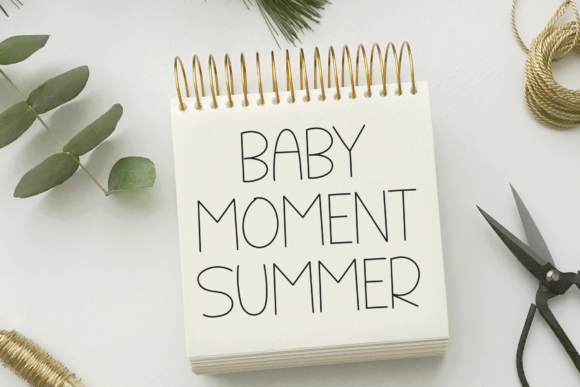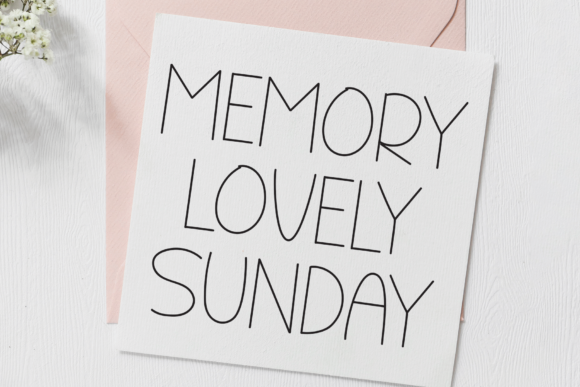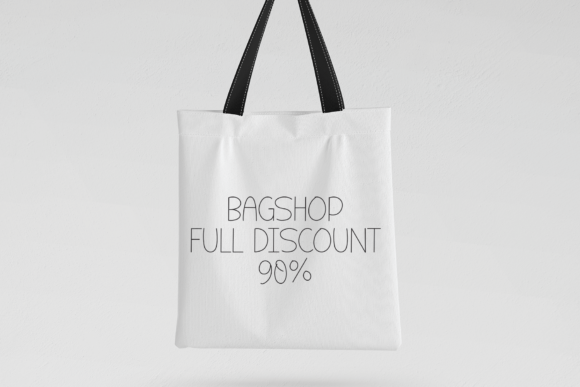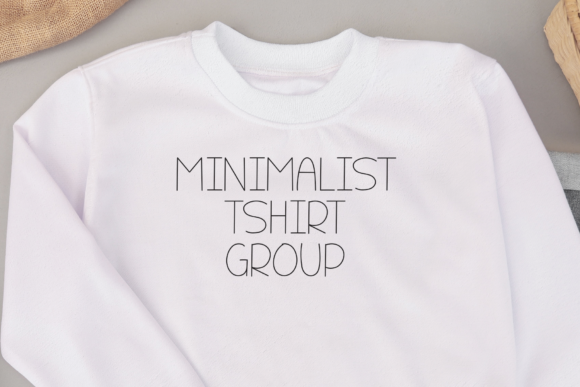
Introduction to Minimalest Font
Remember the thrill of discovering that perfect font for your creative project? The one that brings your design to life and makes your heart skip a beat? For designers, finding the right font can be a game-changer, and that’s exactly what the Minimalest Font does. With its simple, tall, and playful handwritten style, this font is a breath of fresh air in the world of design.
Whether you’re working on a logo, a brochure, or a social media graphic, the Minimalest Font is sure to add a touch of whimsy and personality to your design. And the best part? It’s a high-quality, free download that’s perfect for designers on a budget. With its transparent background and versatile design, the Minimalest Font is a valuable resource for any creative project.
Key Features of Minimalest Font
- High-quality design resource suitable for various creative projects, including digital art, graphic design, and web development.
- Transparent background, allowing for seamless integration with other design elements and backgrounds.
- Designed with precision and attention to detail, resulting in a crisp and clear font with high resolution (up to 300 DPI).
- Perfect for use in digital design, print media, and even web design, thanks to its versatility and adaptability.
- Comes in a range of sizes, making it suitable for use in various contexts, from small text to large headings.
Honest Review: Minimalest Font
As a designer, I’m always on the lookout for high-quality fonts that can elevate my creative projects. I recently stumbled upon the Minimalest Font, and I’m excited to share my honest review.
Here are some features that impressed me:
- ✨ Clean and minimalist design: The Minimalest Font is perfect for designers who want a simple, yet elegant look for their projects.
- ✨ Transparent background: This font is fully transparent, making it easy to use on any background, which is a huge plus for designers who want flexibility.
While the Minimalest Font is a great resource, I did encounter some limitations:
- ⚠️ Limited character set: The font only includes a limited set of characters, which may not be suitable for projects that require a wide range of characters.
- ⚠️ Not ideal for small text: The font may not be the best choice for small text, as it can become difficult to read.
Overall, the Minimalest Font is a great addition to any designer’s toolkit. While it has some limitations, its clean design and transparent background make it a valuable resource for creative projects.
How to Use Minimalest Font
The Minimalest Font is a high-quality, versatile font suitable for various creative projects. It features a transparent background, making it easy to combine with other design elements.
Getting the Most Out of Minimalest Font
Experiment with different font sizes, colors, and combinations to create visually appealing designs. This font is highly versatile, making it suitable for various creative projects.
The Minimalest Font is commonly used in branding, marketing materials, and digital products. Its clean and modern design makes it an excellent choice for a wide range of applications.
Alternatives to Minimalest Font
Open Sans is a popular, modern sans-serif font ideal for digital design projects. Its clean and simple design makes it perfect for use on websites, apps, and other digital platforms.
When to use: Open Sans is suitable for a wide range of creative projects, including blogs, magazines, and e-commerce websites. It’s also a great choice for designers who want a free, high-quality font for their design resource.
Comparison to Minimalest Font: While both fonts have a minimalist aesthetic, Open Sans has a more rounded and friendly feel, making it more suitable for body text and headings. Minimalest Font has a more geometric and bold appearance, making it ideal for titles and emphasis.